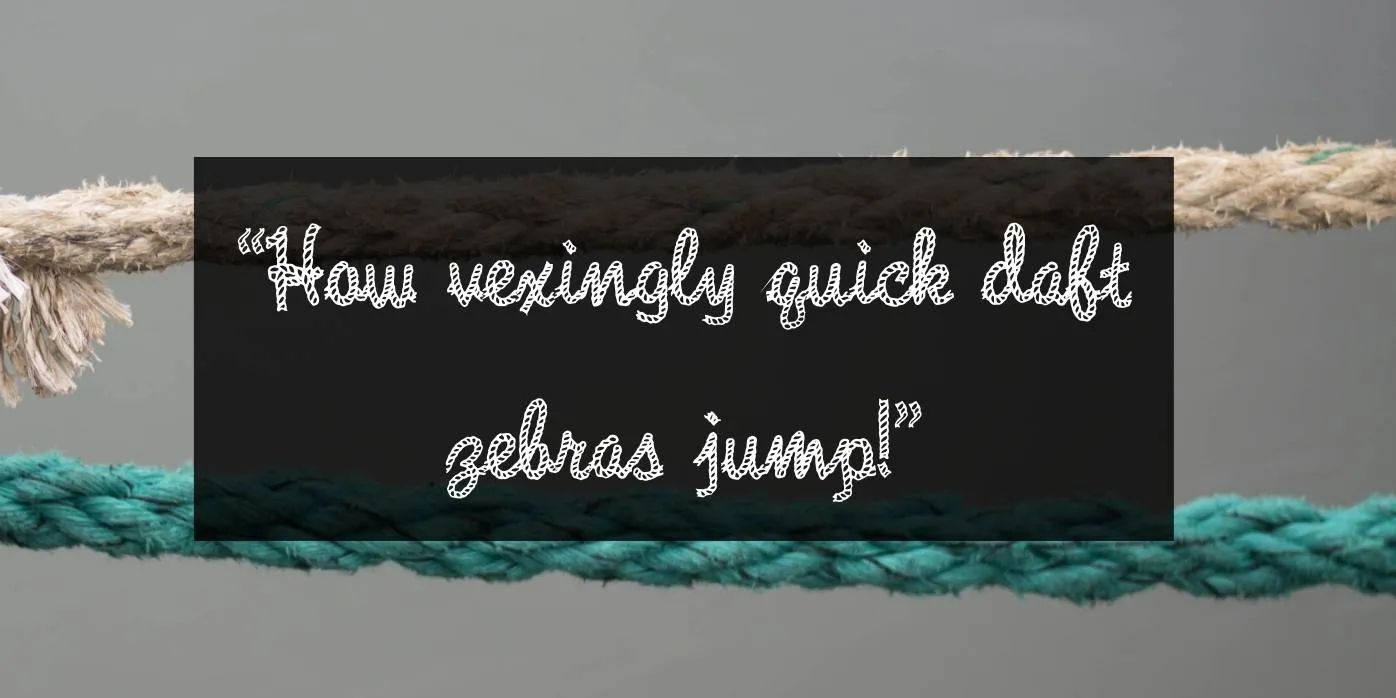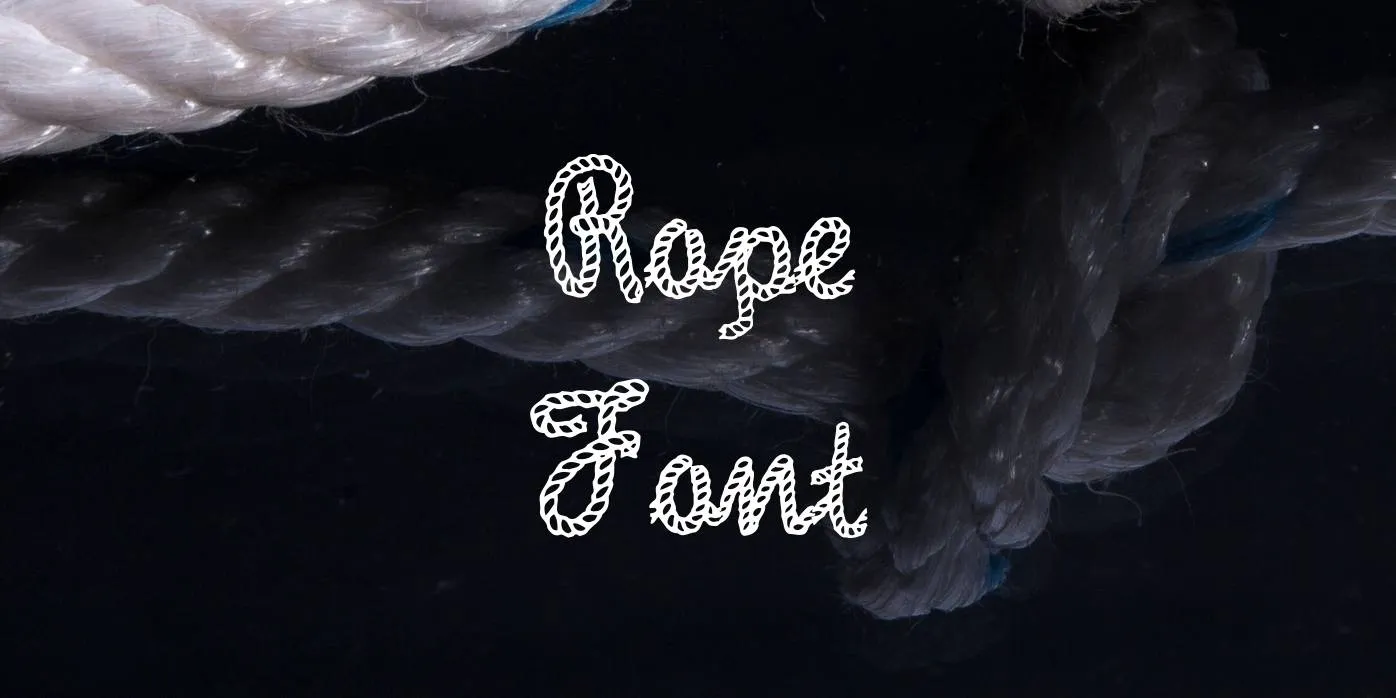
Rope Font
In this post, we present a new typeface that is known by the name Rope Font. It was designed by Richard William. It belongs to the Calligraphy typeface. This typeface is available for free for personal use.
You can use it for both personal and commercial purposes. It is also included in google fonts. The Rope Font was created with a brush pen. It has a strong personality yet its elegant shapes make it versatile enough to be used in a variety of projects.
The Rope Font is perfect for branding, invitations, quotes, headlines, logos, and more. It is also used for Canva. It is available in 7 unique styles. For more features, seventies font by making a combination with this font family.